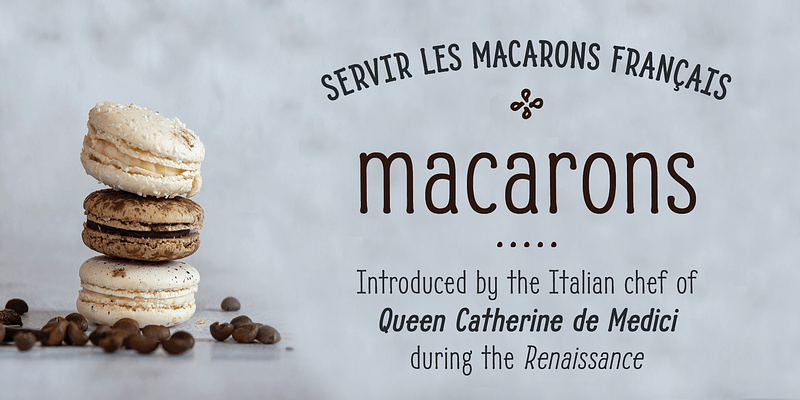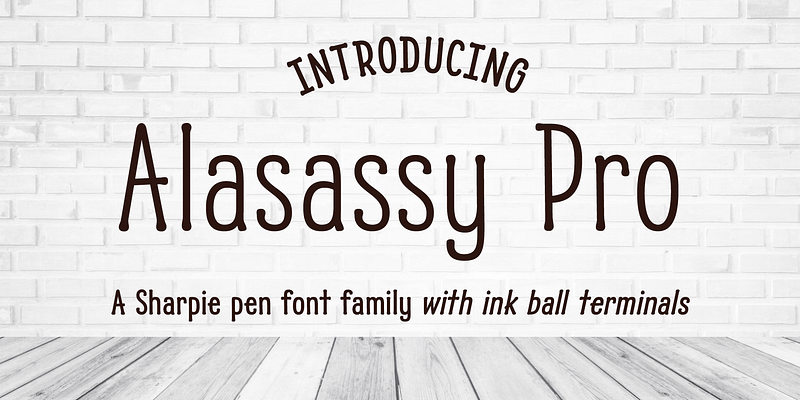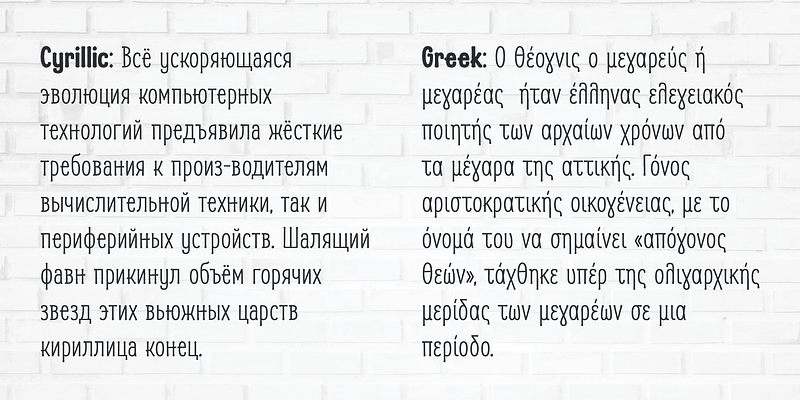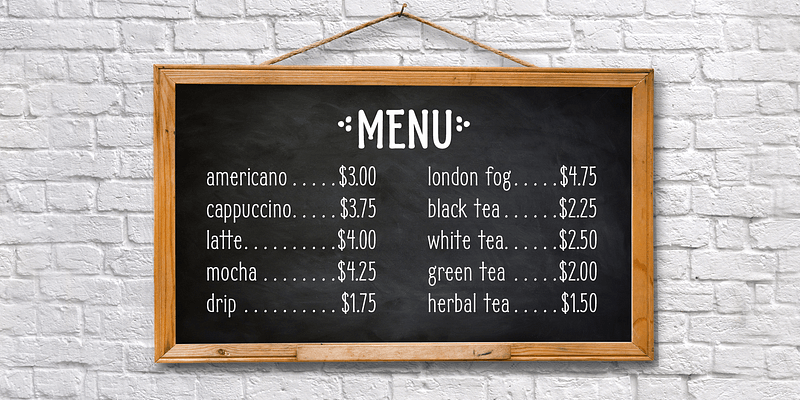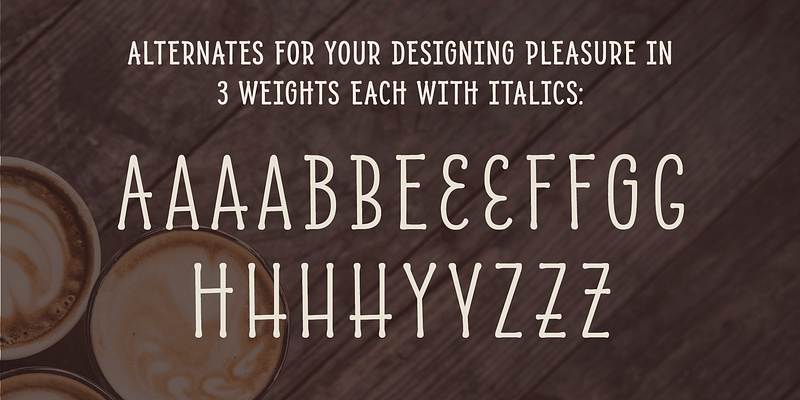
Alasassy is an informal typeface that is designed to liven up logos, headlines, informal signs, advertising, book or report covers, or packaging. It’s narrow and looks hand-written, as though it had been drawn with a felt-tip pen that left little ink balls on the ends of letters. Alasassy includes both lowercase and uppercase letters, with alternate characters that mix high and low crossbars, giving the design versatility and a whimsical feeling. Type designer Andrea Leksen wrote out pages of Sharpie pen drawings to get the look she wanted for Alasassy. She describes it as “a great combination of an organic, hand drawn feel but still clean and crisp enough to look professional.” Alasassy Pro is offered in three weights—Regular, Bold, and Black—with italic complements for each. The Pro version contains more language support, including Cyrillic and Greek. The Caps version mixes capital and lowercase letter shapes that share the same height.
Type design enthusiast and legibility evangelist, Andrea Leksen’s passion is typography. She currently contracts as a type designer for Microsoft, consults as an Art Director managing Amazon’s fonts, and releases new fonts through her design firm, Leksen Design. Her font releases include Alasassy, Mr Gabe, Nordeco, Nordique Pro, and Bemis.